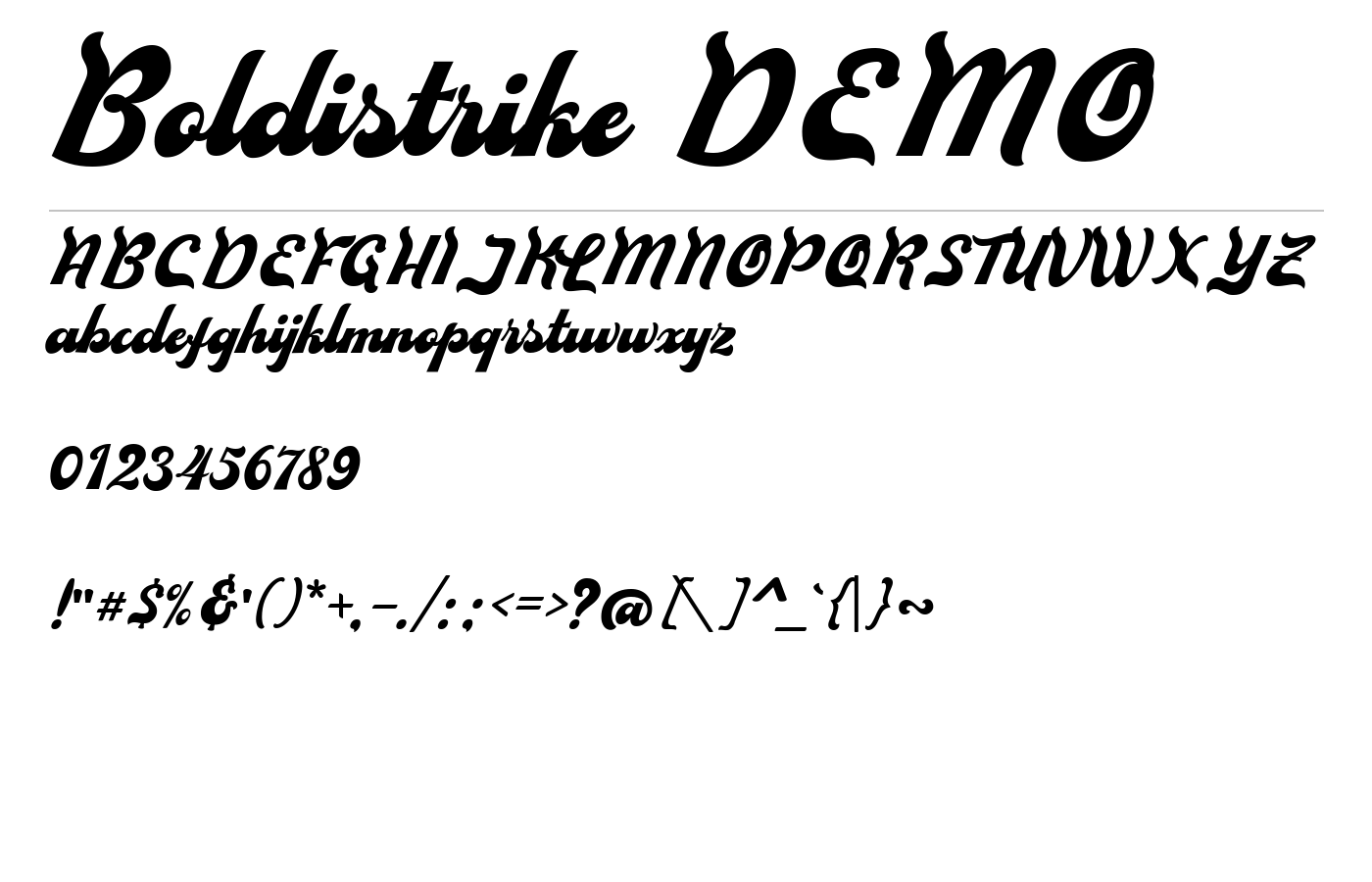
Boldistrike DEMO is a bold, condensed script font featuring smooth, flowing strokes with a slight retro flair. Its high contrast between thick and thin lines combined with unique, stylized uppercase letters give it a dynamic and eye-catching personality, perfect for branding, headlines, and display uses where a strong, vintage-inspired impact is desired.
Boldistrike DEMO Font
About Boldistrike DEMO Font
| Font family | Boldistrike DEMO Font |